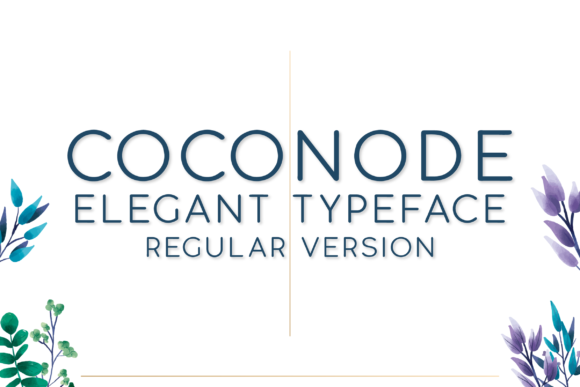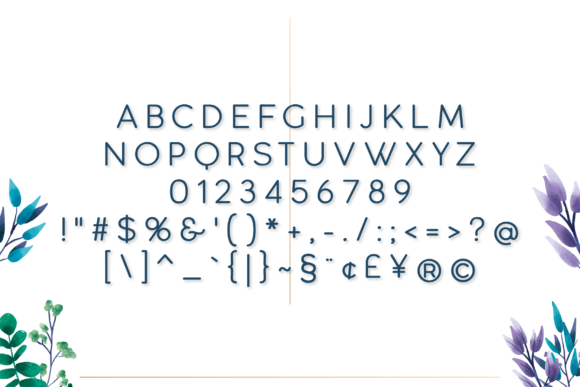
HomeSans Serif FontsCoconode Font Sans Serif Fonts Coconode Font FacebookXPinterestWhatsApp Coconode Font 1 of 2 About Coconode Font Coconode is a gorgeously unique sans serif font that combines perfect readability with a clean and modernist lettering design. DOWNLOAD NOW People also explored Delistaria Signature Font Pirate Font Grethania Font Best Choice Font Family Monogram Font Qolam Black Font Miguel Font Syarena Font Smart Watch Font 382 0 TagsCoconode Font Previous articleCoconode Light FontNext articleRegginance Font LEAVE A REPLY Cancel reply Comment: Please enter your comment! Name:* Please enter your name here Email:* You have entered an incorrect email address! Please enter your email address here Website: Save my name, email, and website in this browser for the next time I comment. Personal Use Free Ciggs Personal Use Free Read more about this font Just Smile Personal Use Free Read more about this font Konexio Personal Use Free Read more about this font Catandra Script Personal Use Free Read more about this font BLOG The 10 Best Handwriting Fonts to Add Personality to Your Designs 10 of the Best Handwriting Fonts for Adding Personality to Your Designs There will undoubtedly be no other better choice than handwriting fonts to give... Best Fonts for T-Shirt Design – Top 2025 Picks How to Install and Use Fonts on Windows, macOS, and Web Projects How to Cut Any Font on Cricut: Convert a Font to SVG (Free)